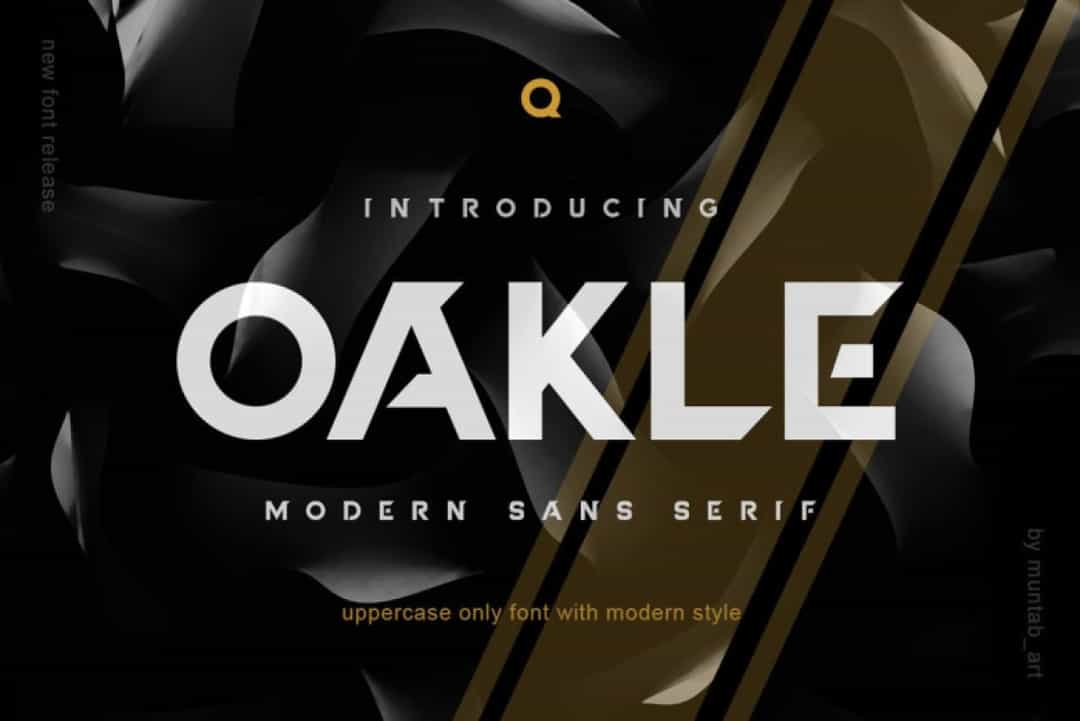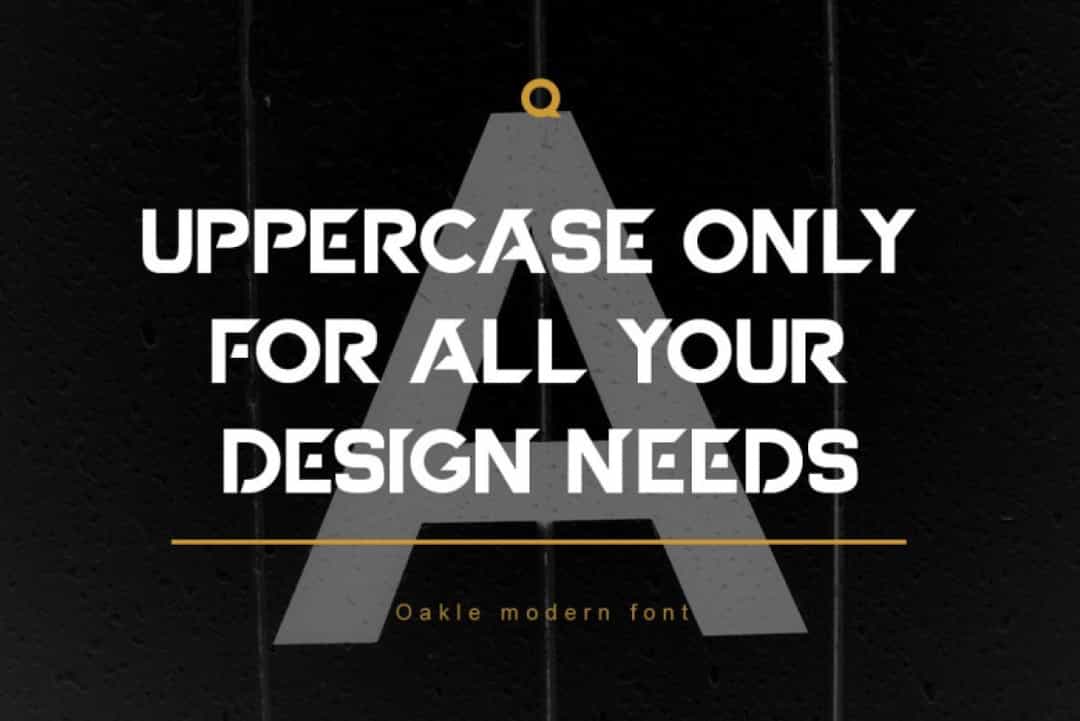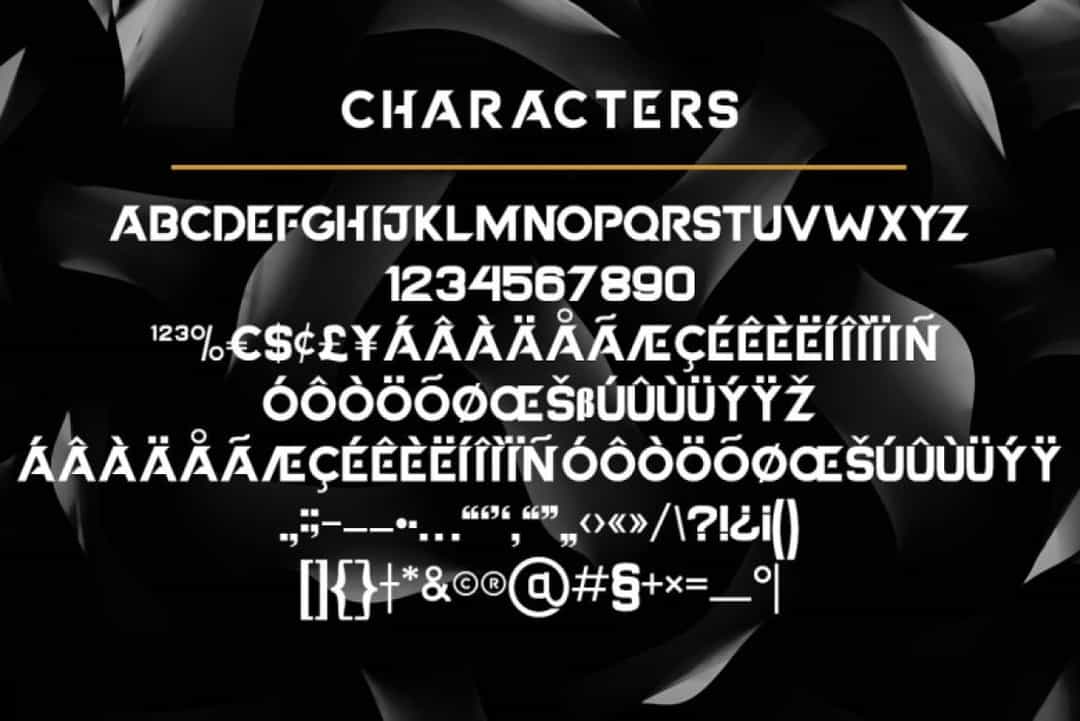
Oakle Fonts include uppercase numerals, letters, and an extensive variety of punctuation marks in its modern-looking font design, perfect for posters, branding, web designs illustrations badges or other creative projects. It was made for poster design work as well.